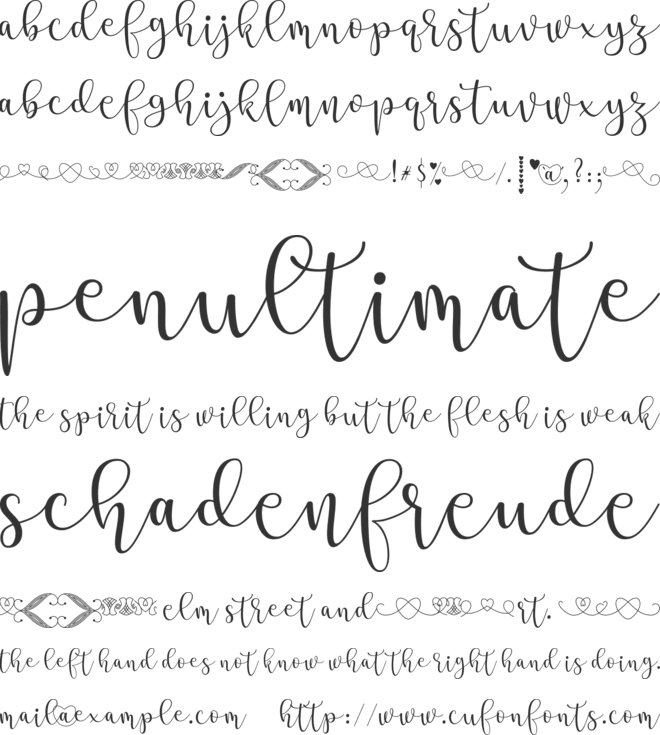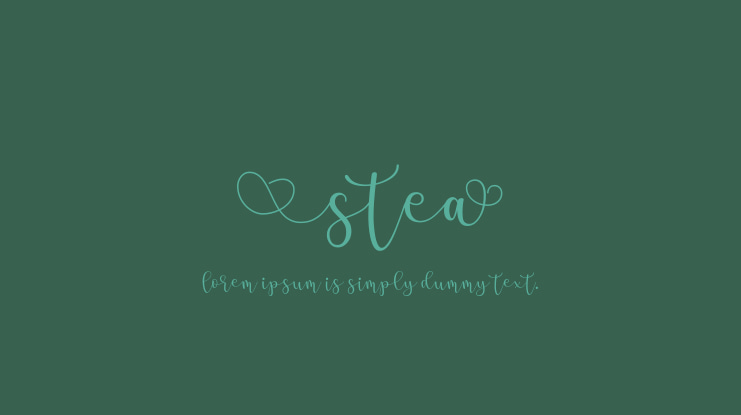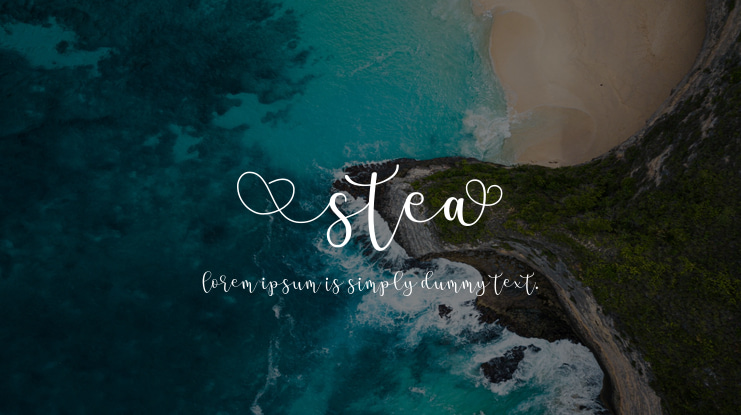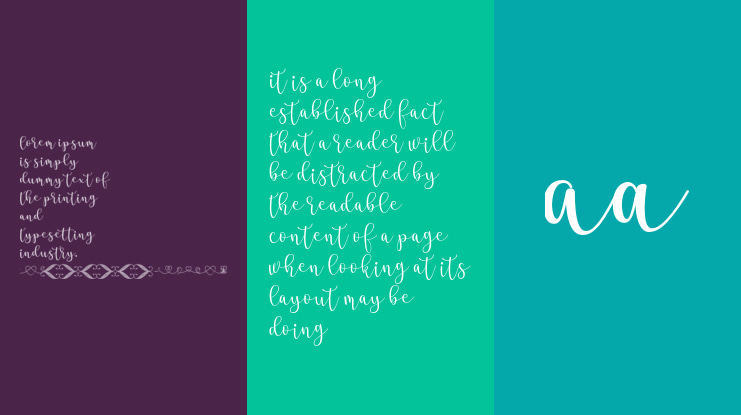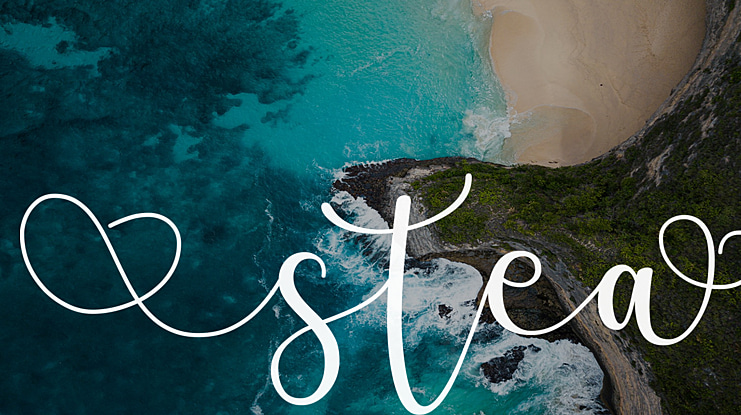
Stea, a modern calligraphy designed with love, is a fun, decorative script font created by Situjuh Nazara.This font comes with stunning decorative characters that can be used to decorate the end and beginning of words as well as gluing words together. This allows for unique combinations that make your designs stand out.Stea Font is design to make all the users are easily use it. Use numbers as borders or patterns to decorate your design, card, invitation and others. I have included the .pdf file the zip file you downloaded as a guide and sample how to you use it. Stea font is only free for personal use and it is restricted to distribute without my permission. If you want to use it for commercial use, get it exclusively on Creative Fabrica: here is the fix link: www.creativefabrica.com/product/stea/ref/87/ (https://www.creativefabrica.com/product/stea/ref/87/)Thank you for downloading and using Stea font.